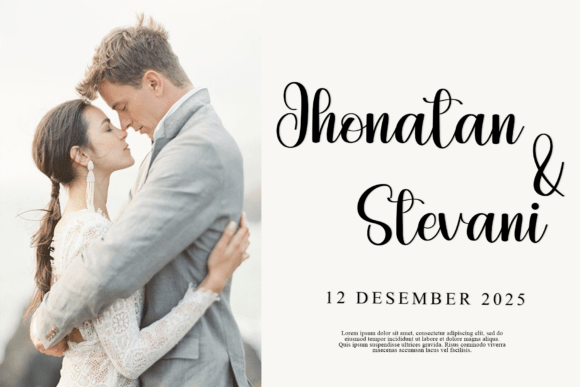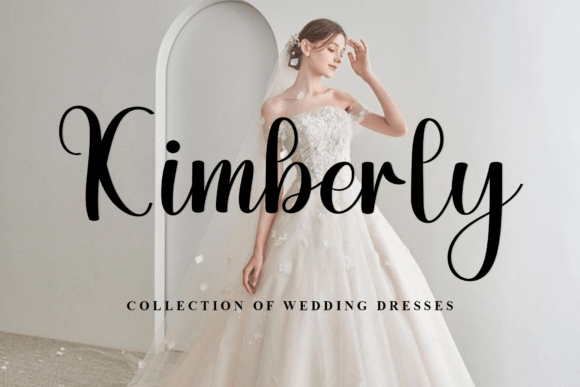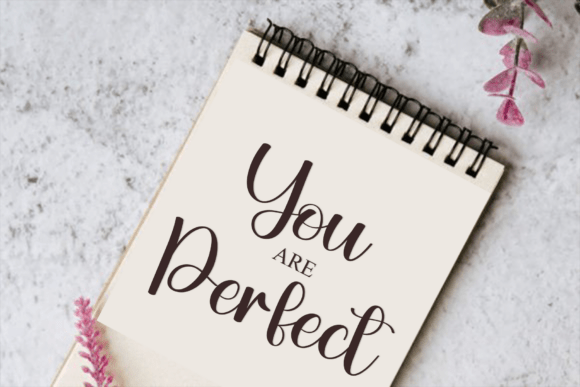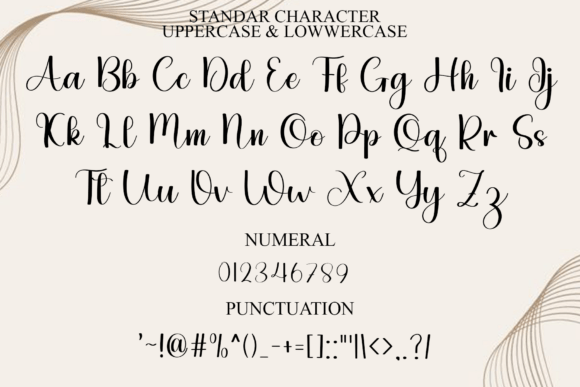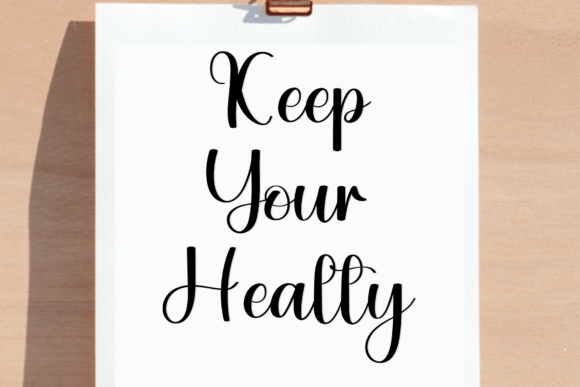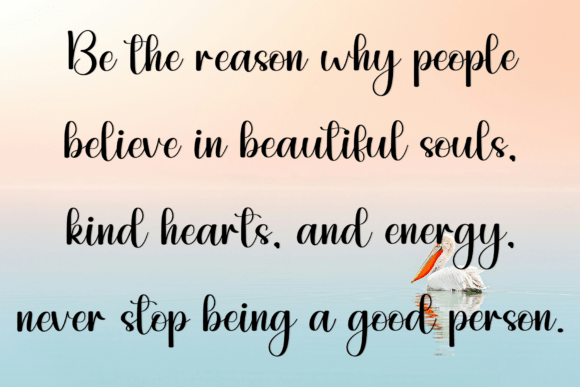
Elegant Wedding Font: The Perfect Choice for Your Special Day
When it comes to planning your special day, every detail matters. From the venue to the decorations, and from the music to the wedding favors, you want everything to be perfect. One often overlooked but crucial element is the font used in your wedding invitations, decorations, and other materials. That’s where the Elegant Wedding font comes in – a beautiful, casual, and creative font that exudes warmth and friendliness.
The Characteristics of Elegant Wedding Font
Elegant Wedding is a unique font that features round, playful strokes that create a relaxed and approachable feel. This charming, hand-drawn aesthetic adds a fun and unique touch to any design, making it perfect for personal projects, invitations, and social media graphics. The font’s casual and creative vibe makes it an excellent choice for couples who want to convey a sense of warmth and friendliness on their special day.
What Makes Elegant Wedding Font So Versatile?
Why Choose Elegant Wedding Font for Your Wedding?
There are many reasons why Elegant Wedding font stands out from other fonts. Here are just a few:
- Unique and Personalized: The Elegant Wedding font adds a personal touch to your wedding materials, making them truly one-of-a-kind.
- Easy to Read: The font’s clear and playful strokes make it easy to read, ensuring that your guests can quickly and easily understand the details of your special day.
- Flexible: Whether you’re using the font for invitations, decorations, or social media graphics, Elegant Wedding font adapts seamlessly to different contexts.
- Warm and Inviting: The font’s warm and friendly vibe sets the tone for a joyful and celebratory atmosphere, perfect for your wedding day.
Tips for Using Elegant Wedding Font
To get the most out of Elegant Wedding font, here are some tips to keep in mind:
- Pair it with Other Fonts: Combine Elegant Wedding font with other fonts to create a unique and visually appealing contrast.
- Experiment with Colors: Play around with different colors to find the perfect match for your wedding theme and style.
- Use it Across Different Platforms: Take advantage of the font’s versatility by using it across different platforms, from social media to print materials.
Elegant Wedding font is a beautiful and versatile font that’s perfect for couples who want to add a personal touch to their wedding materials. With its unique and playful strokes, this font exudes warmth and friendliness, making it an excellent choice for invitations, decorations, and social media graphics. Whether you’re a designer or a crafter, Elegant Wedding font is sure to become your go-to choice for all your wedding planning needs.